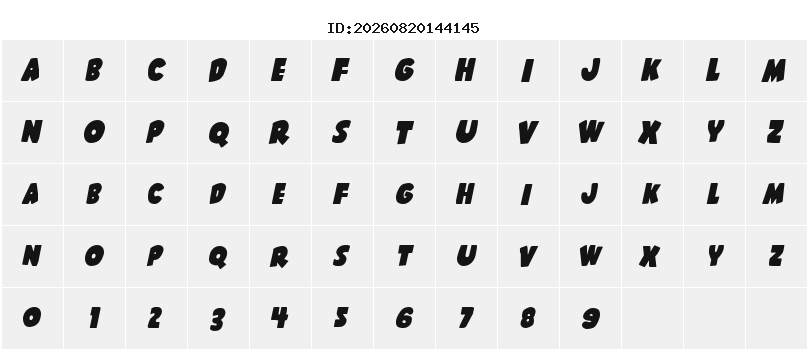
Shablagoo Overlap Italic Preview
• Font Name: Shablagoo Overlap Italic
• Full Font Name: Shablagoo Overlap Italic
About Shablagoo Overlap Italic.ttf
Shablagoo Overlap Italic.ttf is a modern, elegant sans-serif font designed for ultimate readability and visual harmony. Perfect for branding, headlines, web design, and print materials.